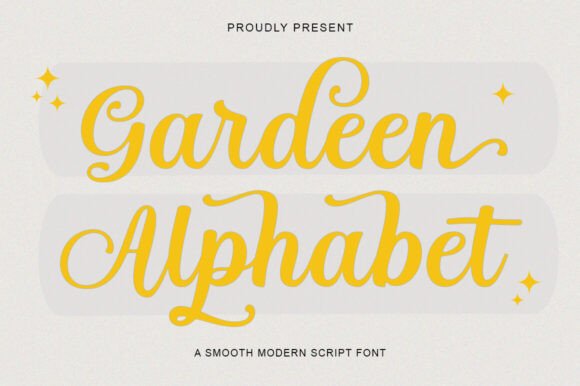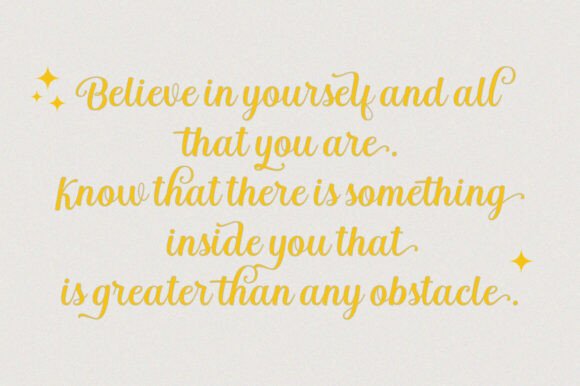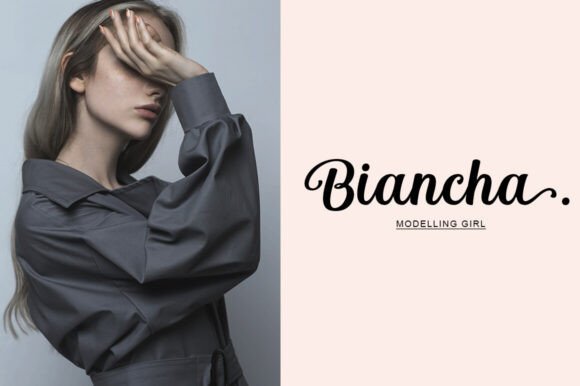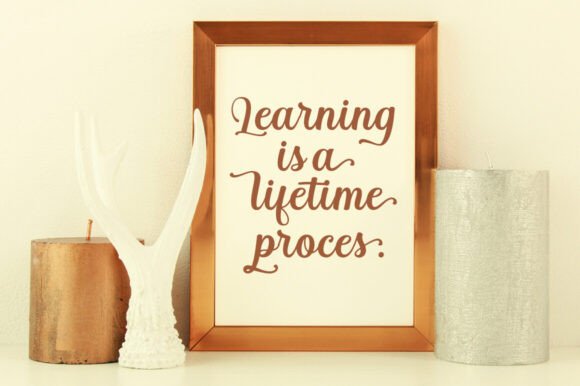
Garden Alphabet Font: A Romantic Calligraphy Script for Wedding Design
About the Garden Alphabet Font
Get ready to be inspired by Garden Alphabet Font, a fresh and dynamic typeface for modern creators. Garden Alphabet is a sweet and romantic calligraphic typeface with characters dancing along the baseline. It will add luxury to any design project you want to create! This font is PUA encoded which means you can access all the amazing glyphs and binders easily!
This font is perfect for quotes, titles, blogs, logos, branding, invitations and more!
Garden Alphabet’s calligraphic style shines in headlines, short text blocks, and branding applications where a touch of elegance and playfulness is desired. It’s ideal for logos, invitations, short quotes, and packaging design for products aimed at a sophisticated yet approachable audience. However, its delicate nature makes it unsuitable for body text or UI elements requiring high readability.
For optimal visual harmony, pair Garden Alphabet with a clean sans-serif like Open Sans for body copy or a geometric sans-serif such as Futura for a modern contrast. A classic serif like Garamond can also create a balanced and timeless feel. Avoid pairing it with other highly decorative or script fonts, as this could lead to visual clutter.
The font projects a charming, romantic personality, best suited for brands emphasizing handcrafted quality, artisanal products, or events with a whimsical yet sophisticated tone.
Garden Alphabet Font Usage Examples
Garden Alphabet Font Example